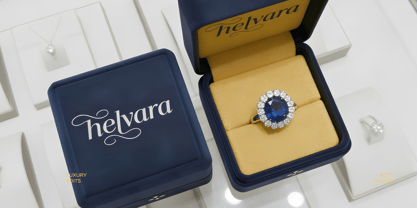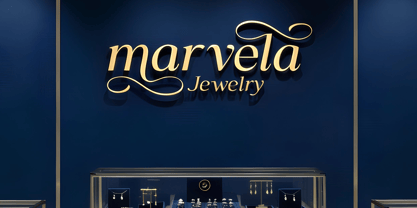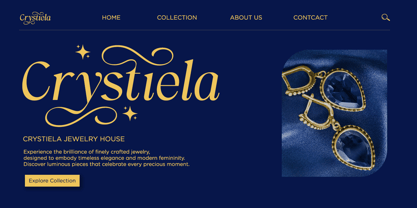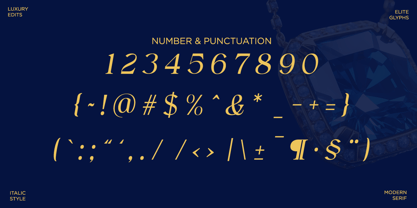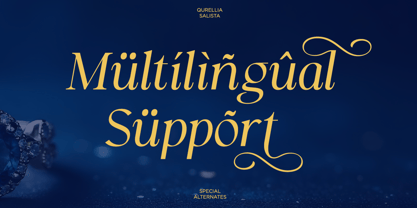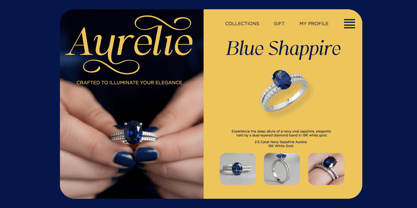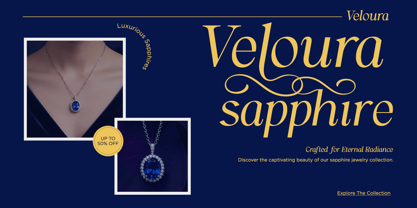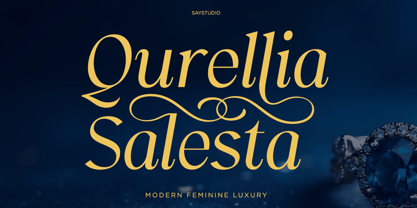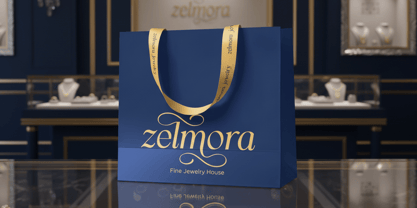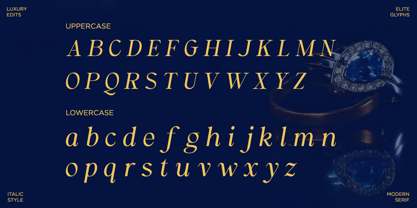
Qurellia Salesta
The Qurellia Salesta Font Family was designed by Mussyayin and published by Say Studio. Qurellia Salesta contains 1 styles. More about this family
Qurellia Salesta is a modern feminine luxury font crafted to express elegance, sophistication, and timeless beauty. Featuring graceful curves, flowing strokes, and stylish swashes, this font delivers a premium handwritten aesthetic that feels refined, romantic, and exclusive. Designed to elevate branding and visual identity, Qurellia Salesta brings a luxurious charm that instantly enhances any creative project. Perfect for wedding invitations, beauty branding, jewelry packaging, fashion logos, cosmetic labels, boutique identities, luxury product packaging, social media graphics, editorial design, and high-end promotional materials. Its elegant letterforms and smooth rhythm make Qurellia Salesta ideal for projects that require softness, femininity, and upscale appeal while maintaining strong readability. With its balanced combination of modern script style and luxurious personality, Qurellia Salesta empowers designers to create graceful, premium, and emotionally engaging visuals. Whether for digital or print use, this font delivers timeless elegance and refined aesthetics that resonate beautifully with luxury-focused audiences. Thank You, Have a Good Day! Saystudio